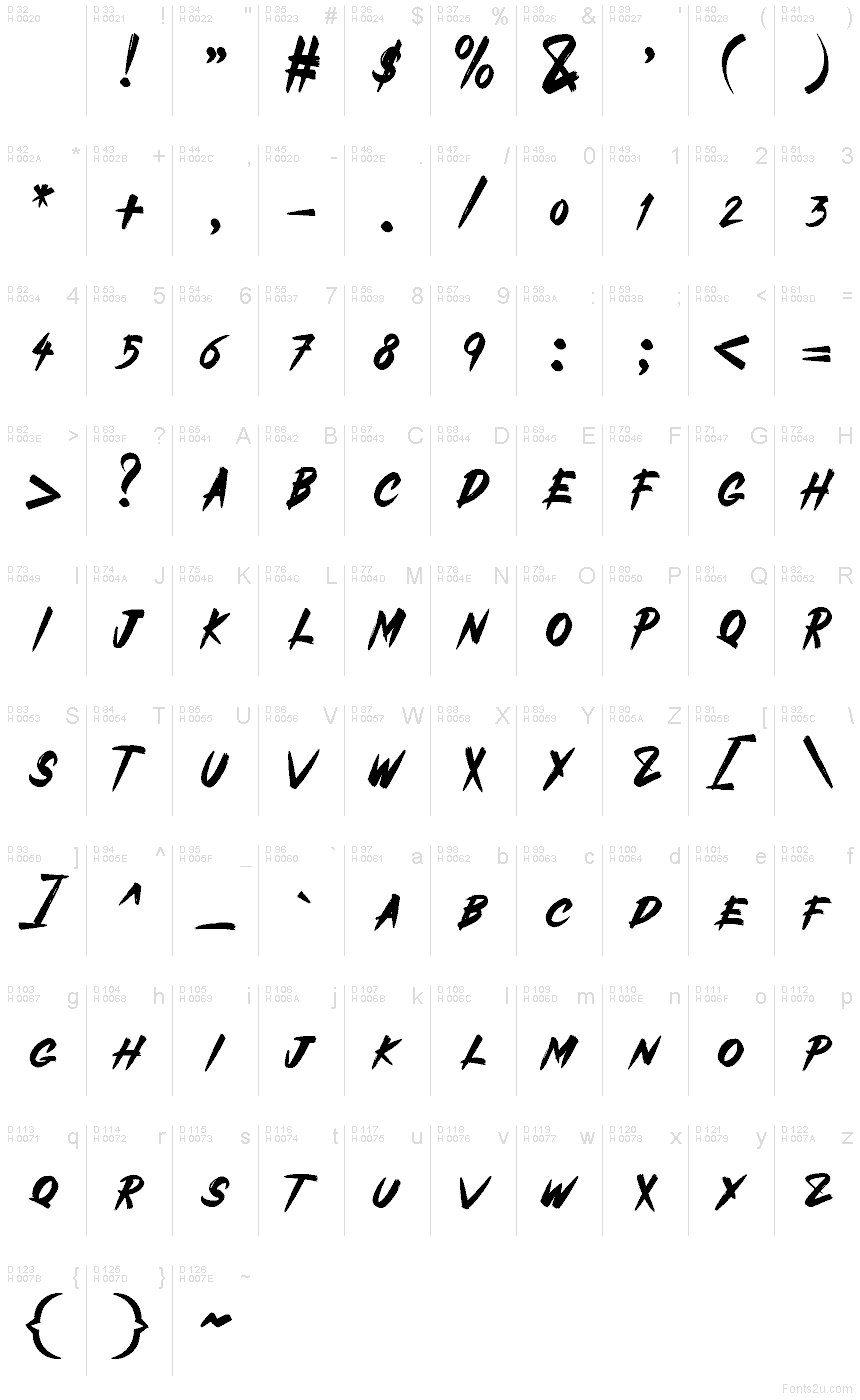
Tonight Wacres font by Dhabee Studio is a free scary display font. Slashed, dry-brush strokes tear across the line, with ragged edges and a forward lean that feels like it’s lunging off the page. The texture is gritty, almost inky, so headlines look hand-painted on a stormy night-loud, urgent, a little unhinged.
Using Tonight Wacres, you can supercharge horror posters, haunted house flyers, thriller book covers, Halloween merch, game titles, and eerie YouTube thumbnails. Its chaotic rhythm grabs attention fast, then holds it with rough contrast and clawed angles. For copy, pair with a clean condensed sans and give this free font extra size and slightly tighter tracking to make the slashes sing.